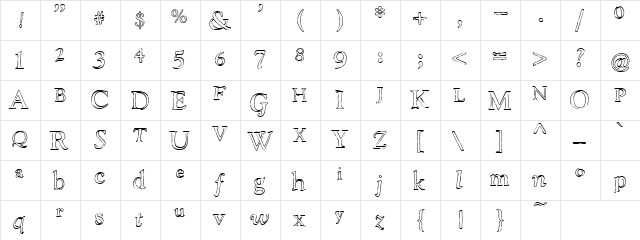
PC Garden Packet Regular
Design Context for PC Garden Packet Typeface
PC Garden Packet offers clean, dependable letterforms without strong stylistic allegiance, making it a practical choice for designers who need flexibility.